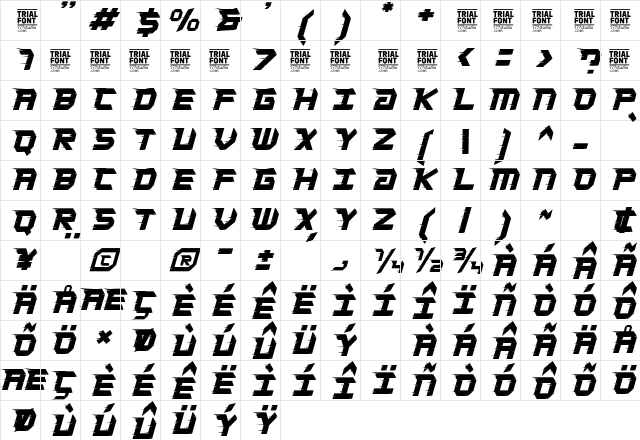
Turbo Speed Demo Italic Free Font
Turbo Speed Demo Italic
Complete Turbo Speed Demo Italic glyph index. Displaying only characters natively supported by Turbo Speed Demo Italic font.
Design Context for Turbo Speed Demo
Turbo Speed Demo is a composed and adaptable typeface that performs quietly and consistently across a wide range of design contexts. The slanted form adds forward momentum and visual energy.